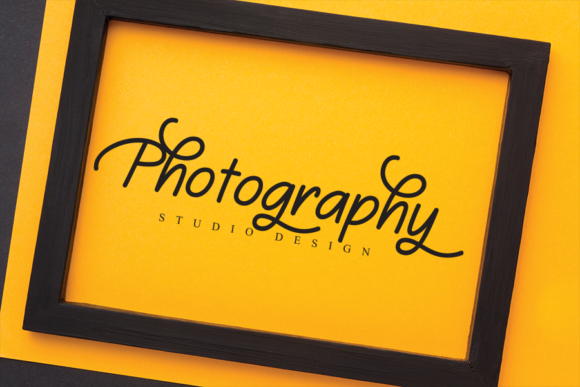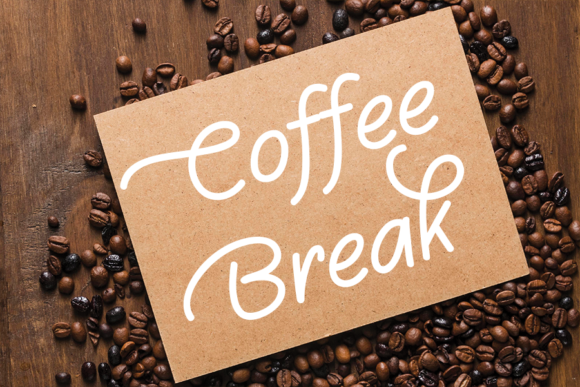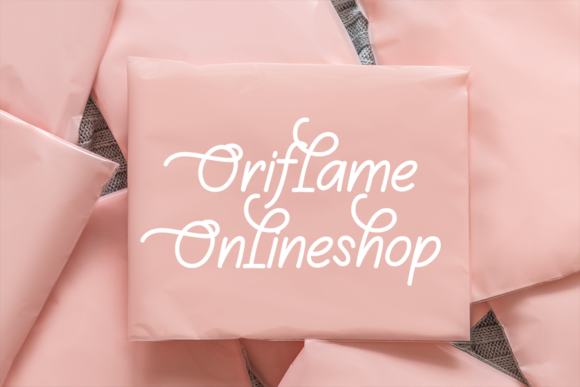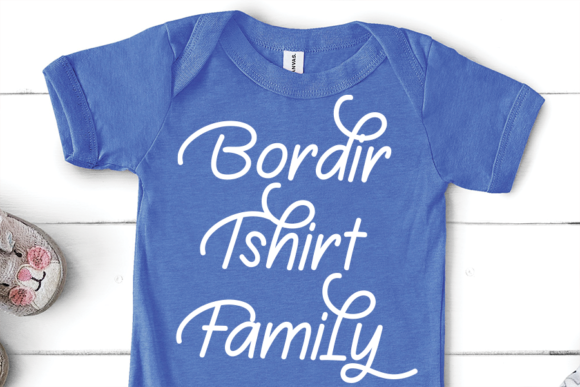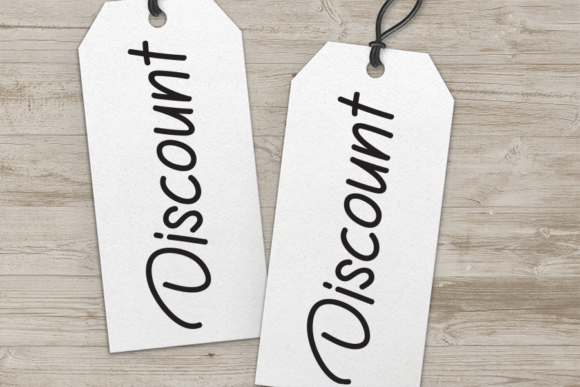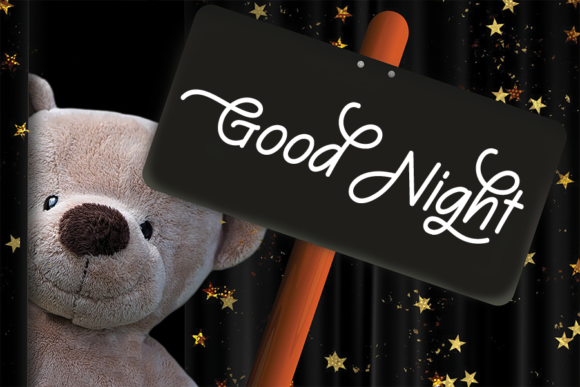
Introducing Happy Family Font: Elevate Your Designs with a Timeless Handwritten Style
Are you on the hunt for a font that can instantly elevate your designs and make them stand out from the crowd? Look no further than Happy Family Font, a unique and interesting handwritten font that is sure to capture your heart. With its incredibly stylish look, Happy Family Font is the perfect choice for designers and crafters who want to create gorgeous and timeless designs that leave a lasting impression.
What Makes Happy Family Font So Special?
Happy Family Font is more than just a font – it’s a design statement. Its unique handwritten style is carefully crafted to add a touch of elegance and sophistication to any design project. Whether you’re working on a logo, quote, invitation, business card, or PowerPoint presentation, Happy Family Font is the perfect choice. Its versatility and flexibility make it an ideal font for a wide range of design applications.
Endless Design Possibilities with Happy Family Font
One of the best things about Happy Family Font is its incredible versatility. This font can be used for a wide range of design projects, including:
- Logos: Create a memorable and impactful logo that reflects your brand’s personality with Happy Family Font.
- Quotes: Add a touch of elegance and sophistication to your quotes and make them stand out with Happy Family Font.
- Invitations: Design beautiful and unique invitations for weddings, parties, and other special events with Happy Family Font.
- Business Cards: Elevate your business cards and make a lasting impression with Happy Family Font.
- PowerPoint Presentations: Add a touch of style and sophistication to your presentations and engage your audience with Happy Family Font.
Why Choose Happy Family Font?
So, why choose Happy Family Font over other fonts? Here are just a few reasons why Happy Family Font stands out:
- Unique and Handwritten Style: Happy Family Font features a unique and handwritten style that is sure to capture your heart.
- Timeless Design: Happy Family Font is designed to be timeless, ensuring that your designs will never go out of style.
- Easy to Read: Happy Family Font is easy to read, making it perfect for body text and headlines.
- Highly Versatile: Happy Family Font can be used for a wide range of design applications, making it a great addition to any designer’s toolkit.
Tips and Tricks for Using Happy Family Font
Here are a few tips and tricks for using Happy Family Font to get the most out of this amazing font:
- Experiment with Different Sizes: Happy Family Font looks great in a variety of sizes, so don’t be afraid to experiment and find the perfect size for your design.
- Pair it with Other Fonts: Happy Family Font pairs well with other fonts, so try pairing it with a bold font for headlines or a clean font for body text.
- Use it for Emphasis: Happy Family Font is perfect for adding emphasis to certain words or phrases in your design.
In conclusion, Happy Family Font is a unique and interesting handwritten font that is sure to elevate your designs and make them stand out from the crowd. With its incredibly stylish look and versatility, Happy Family Font is the perfect choice for designers and crafters who want to create gorgeous and timeless designs. Whether you’re working on a logo, quote, invitation, business card, or PowerPoint presentation, Happy Family Font is the perfect choice. So why wait? Download Happy Family Font today and start creating stunning designs that leave a lasting impression!